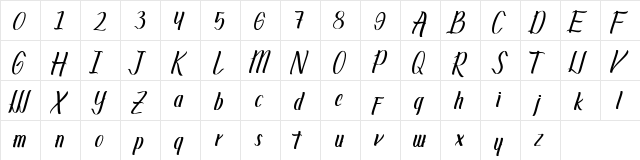
Alverion Reguler
| Foundry | Wallby Hand |
| Designer | Wallby Hand |
Design Context for Alverion Typeface
Alverion is a composed and adaptable typeface that performs quietly and consistently across a wide range of design contexts.